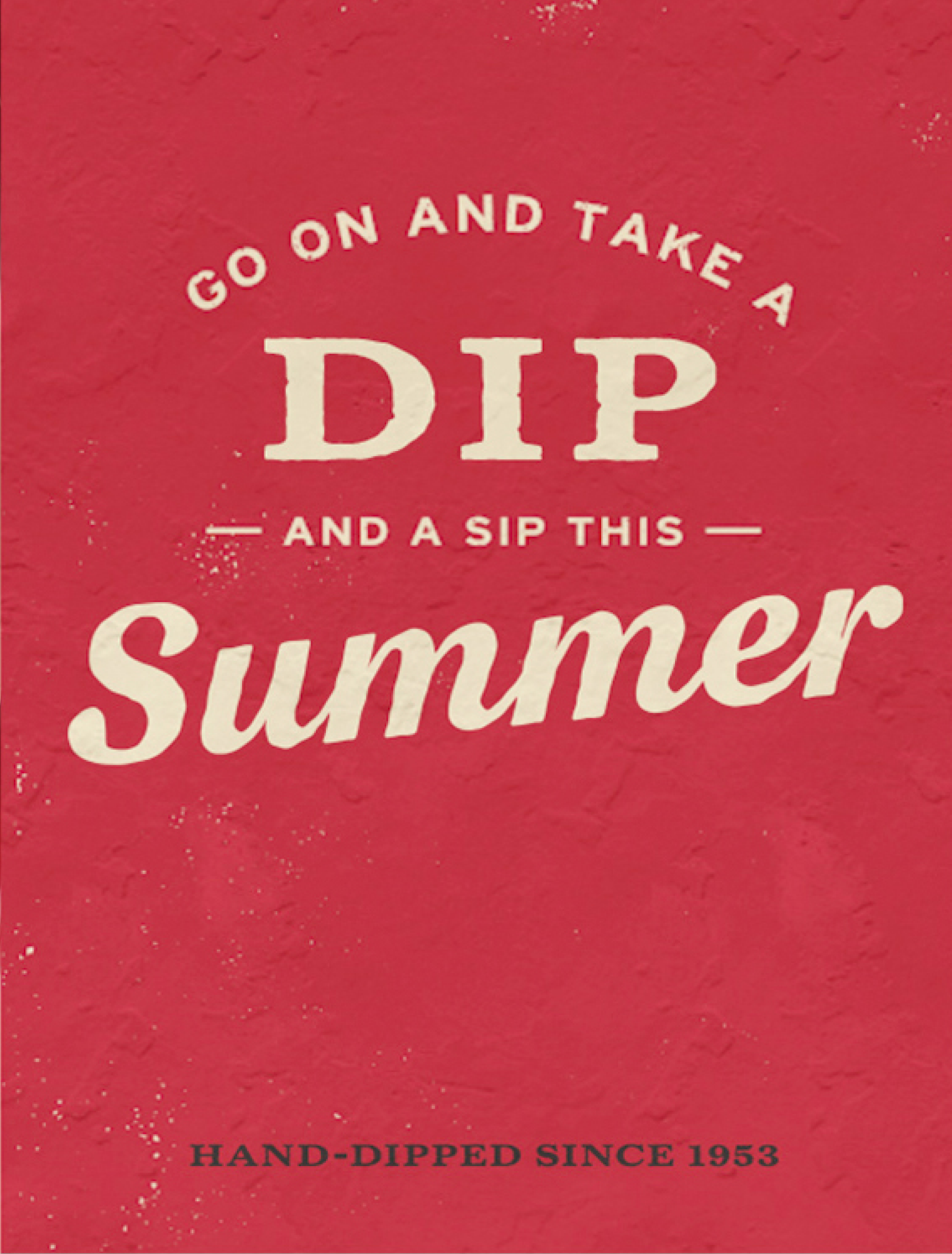
Maker’s Mark Serif
A Font Modification for Maker’s Mark
Maker’s Mark Serif
A Font Modification for Maker’s Mark
Turner Duckworth’s rebrand of Maker’s Mark required a typographic identity that encapsulated the brand’s legacy of authentic, handcrafted excellence. We modified Bressay, adding human details, increasing its weight, and applying a texture inspired by the iconic wordmark.
Maker’s Mark Serif, Font Modification, 2020